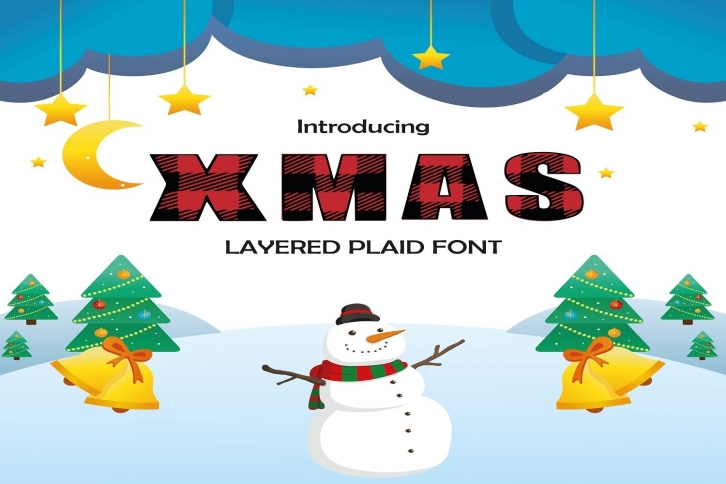
XMAS Plaid Font - A special font Download
XMAS Plaid is a gorgeous font that was realeased on November 10, 2020. The font can be used in many style contexts and design environments. Perfect for invitations, magazines, websites, logos, and more! It was designed by Wowsvgstudio and the file size is 16.9 MB. Thanks for checking out this font!